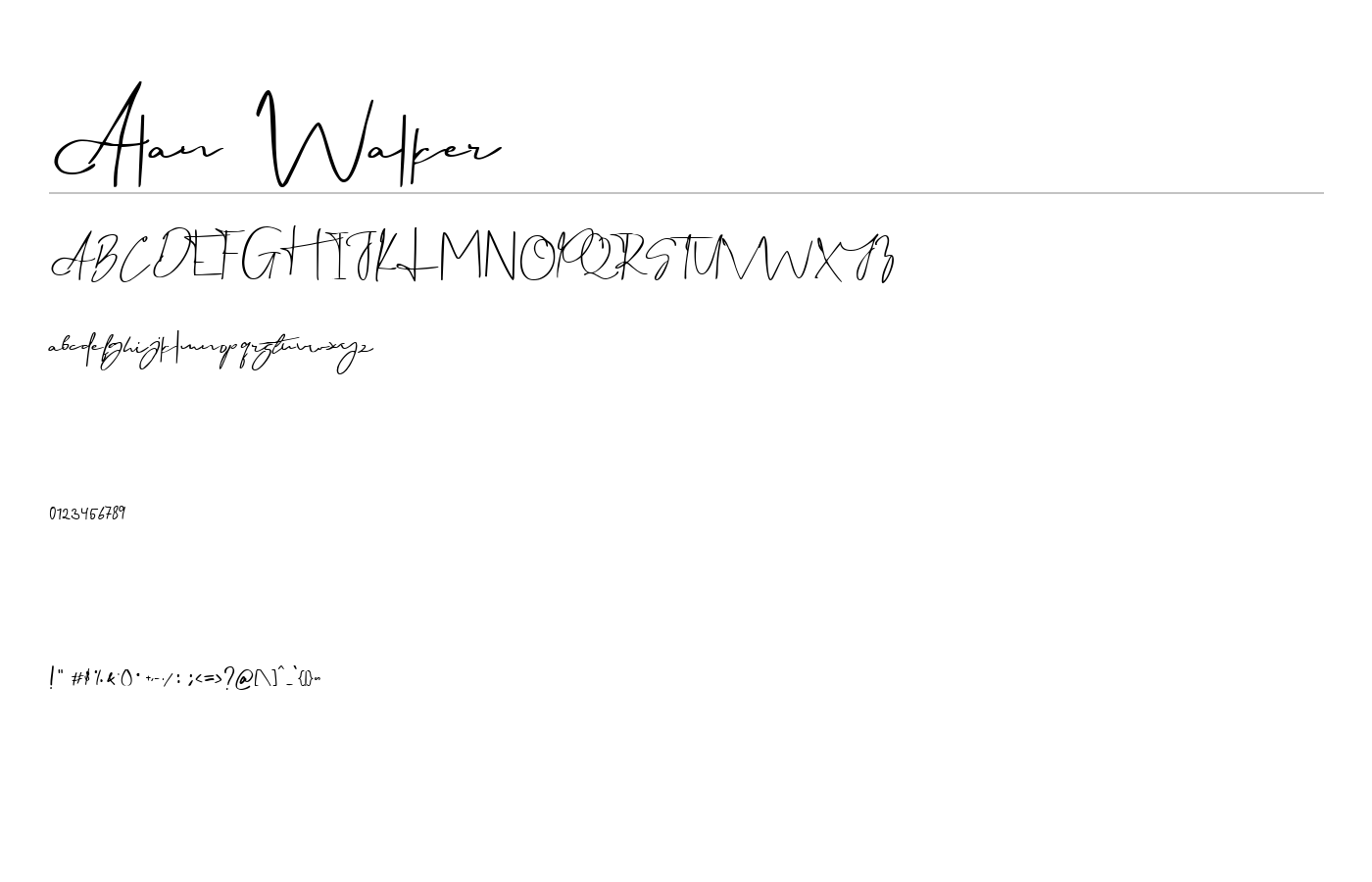
Alan Walker is a delicate, handwritten script font with an elegant, airy feel. Its thin, flowing strokes and playful letterforms make it perfect for adding a personal, artistic touch to creative projects, invitations, and branding that seeks a stylish yet casual charm. This font works best in headlines and decorative uses where its fine detail can shine.
Alan Walker Font
About Alan Walker Font